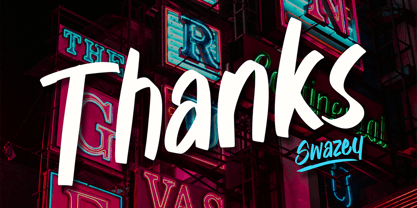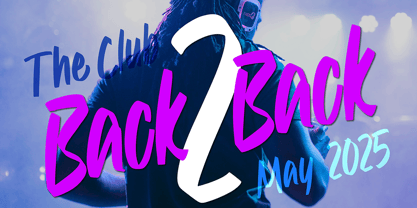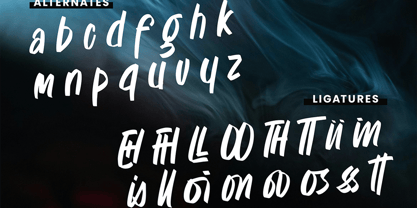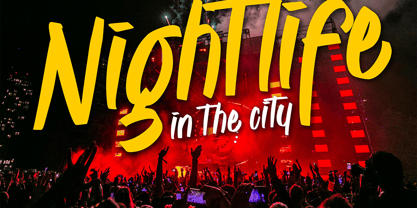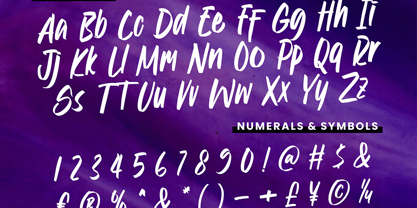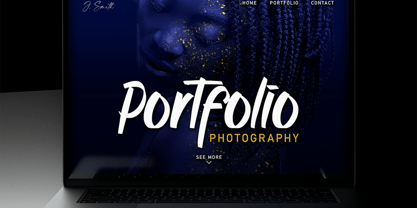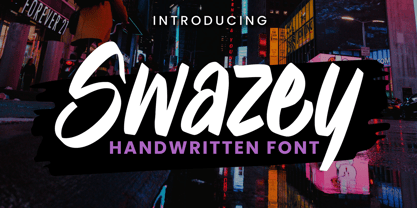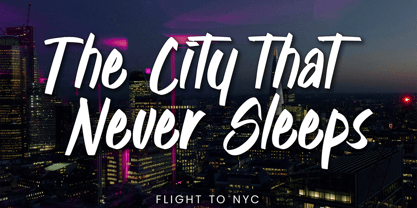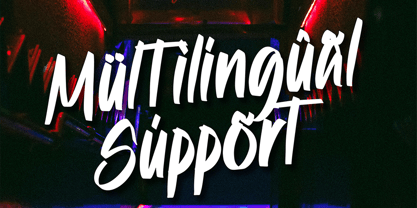
Swazey
by Krafted
The Swazey Font Family was designed by Heri Imanudin and published by Krafted. Swazey contains 1 styles. More about this family
Bring charm and character to your projects with Swazey, a playful and effortlessly stylish handwritten font. Perfect for adding a relaxed, personal feel to branding, packaging, notes, and more!
Customizable in size and style, Swazey gives every design a touch of spontaneity and warmth, making your content feel friendly, authentic, and full of personality.
Designers: Heri Imanudin
Foundry: Krafted